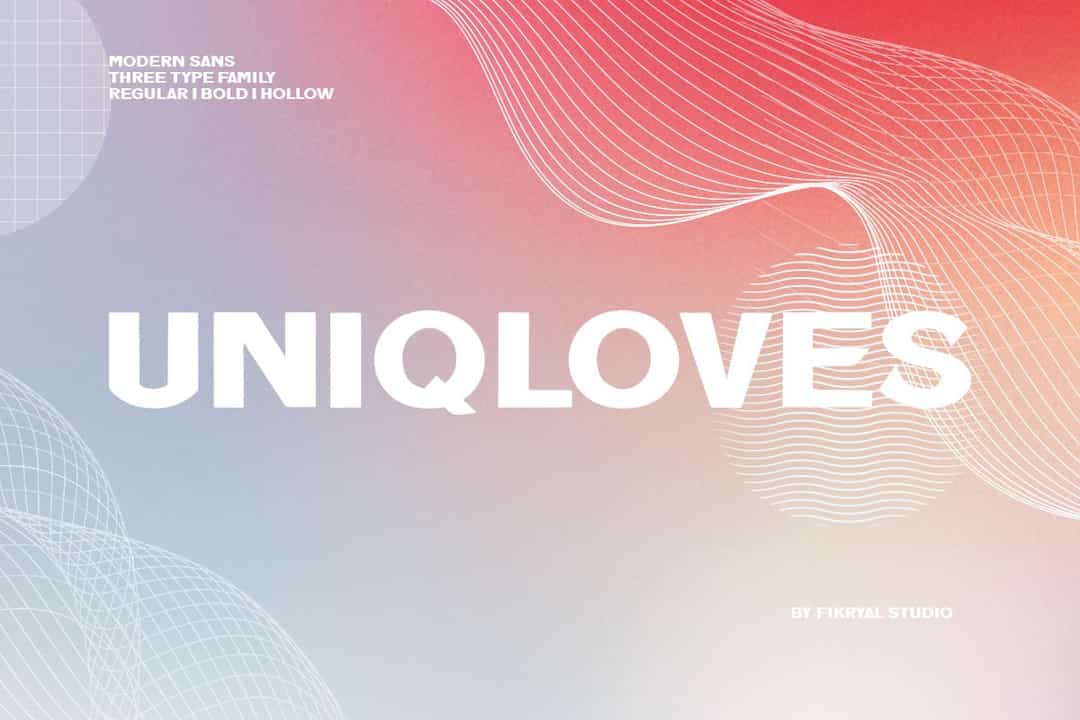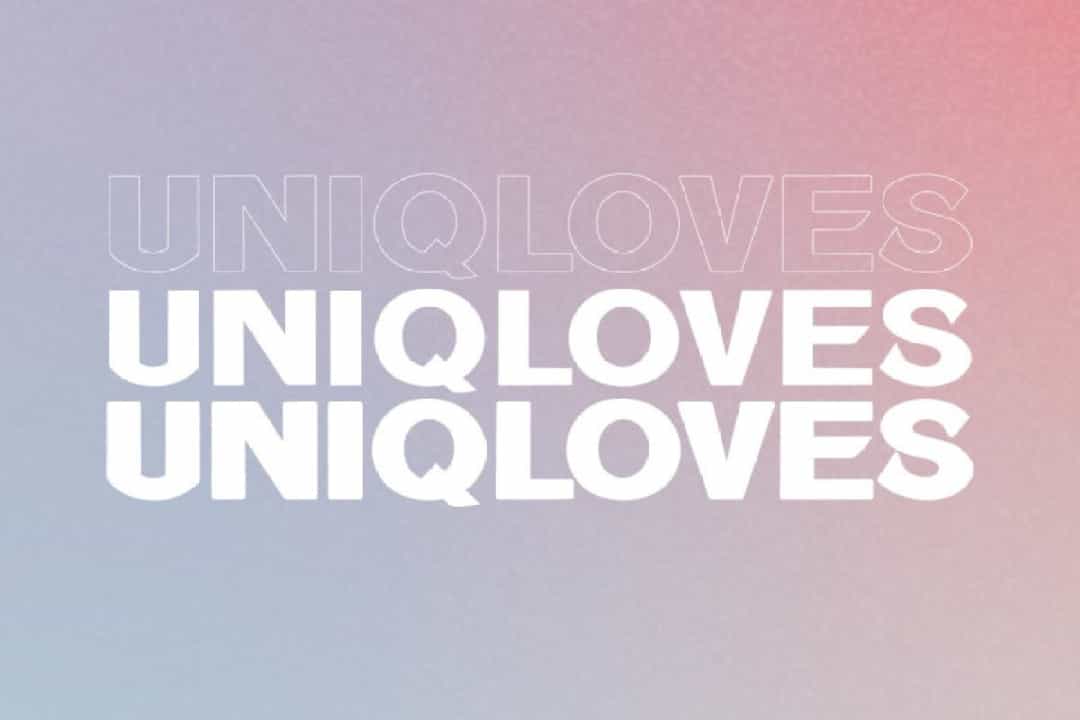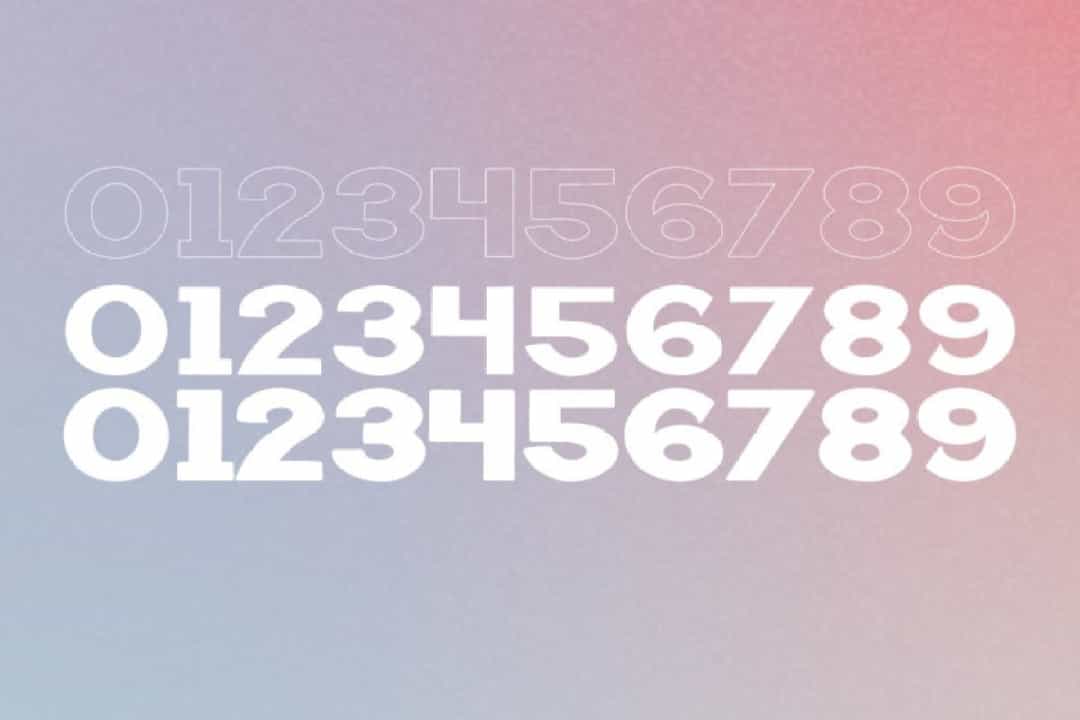
Uniqloves Modern Sans font is available in three versions – Regular, Bold and Hollow. This versatile font can be used across many areas of design to help promote your brand as well as personal use – logos titles on social media posts advertising products photographs packaging design labels photography watermark or special event use magazine web designing etc.